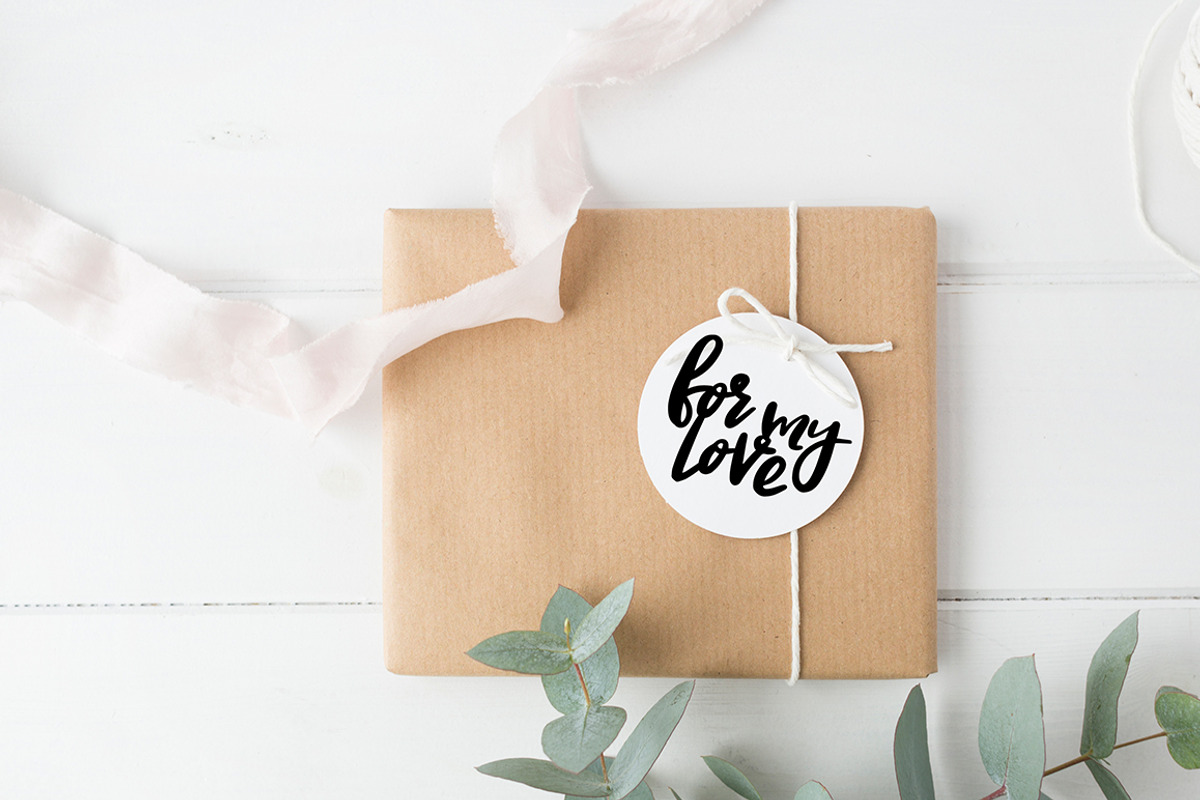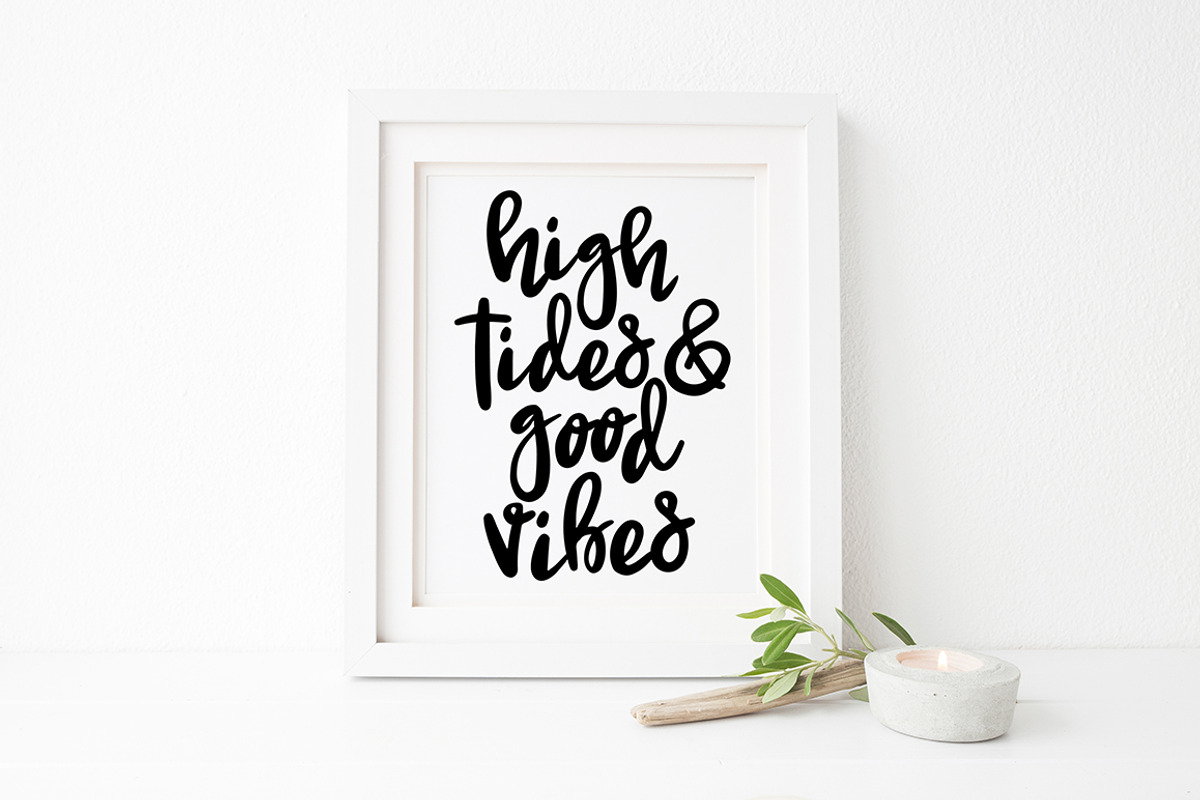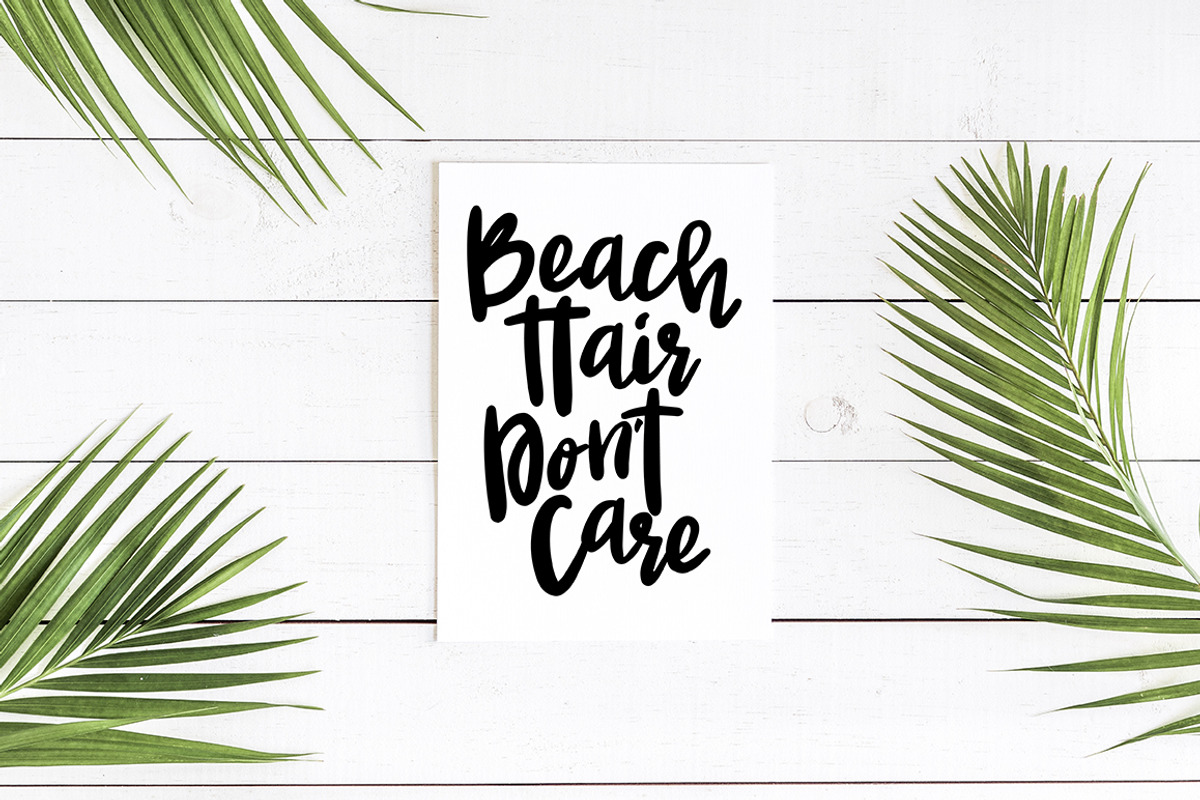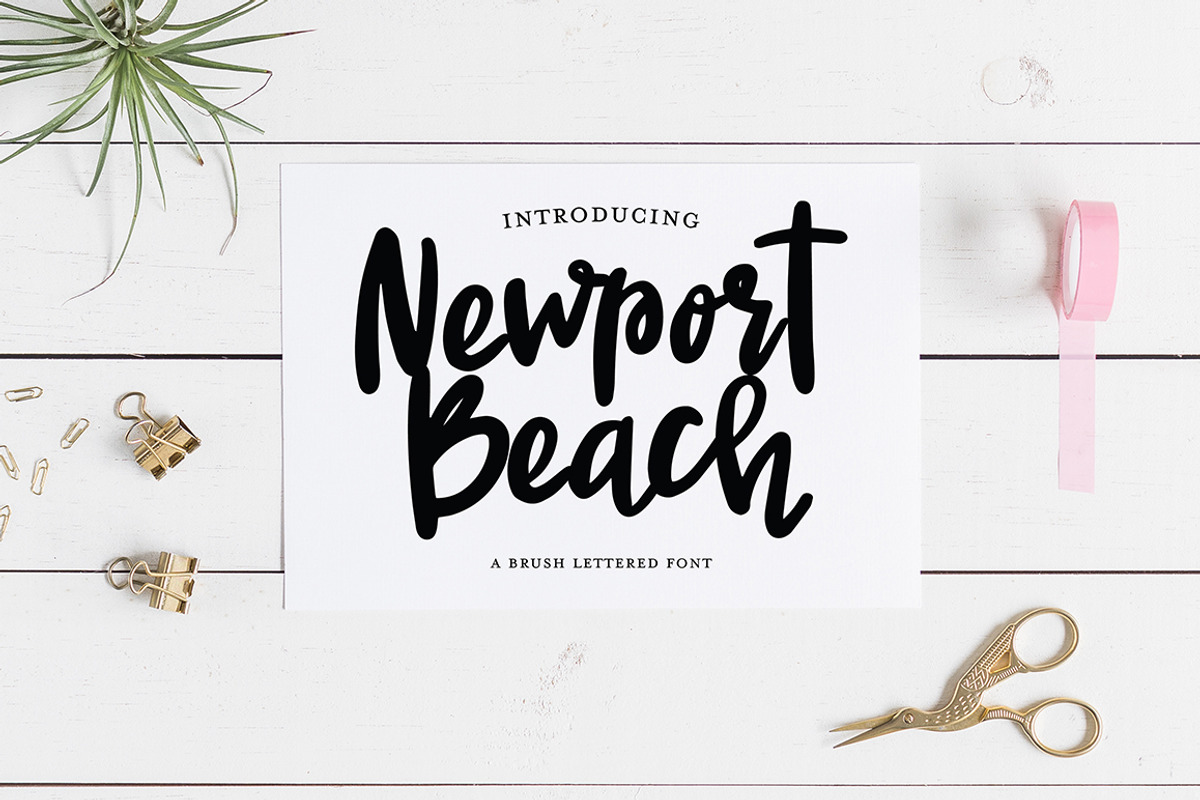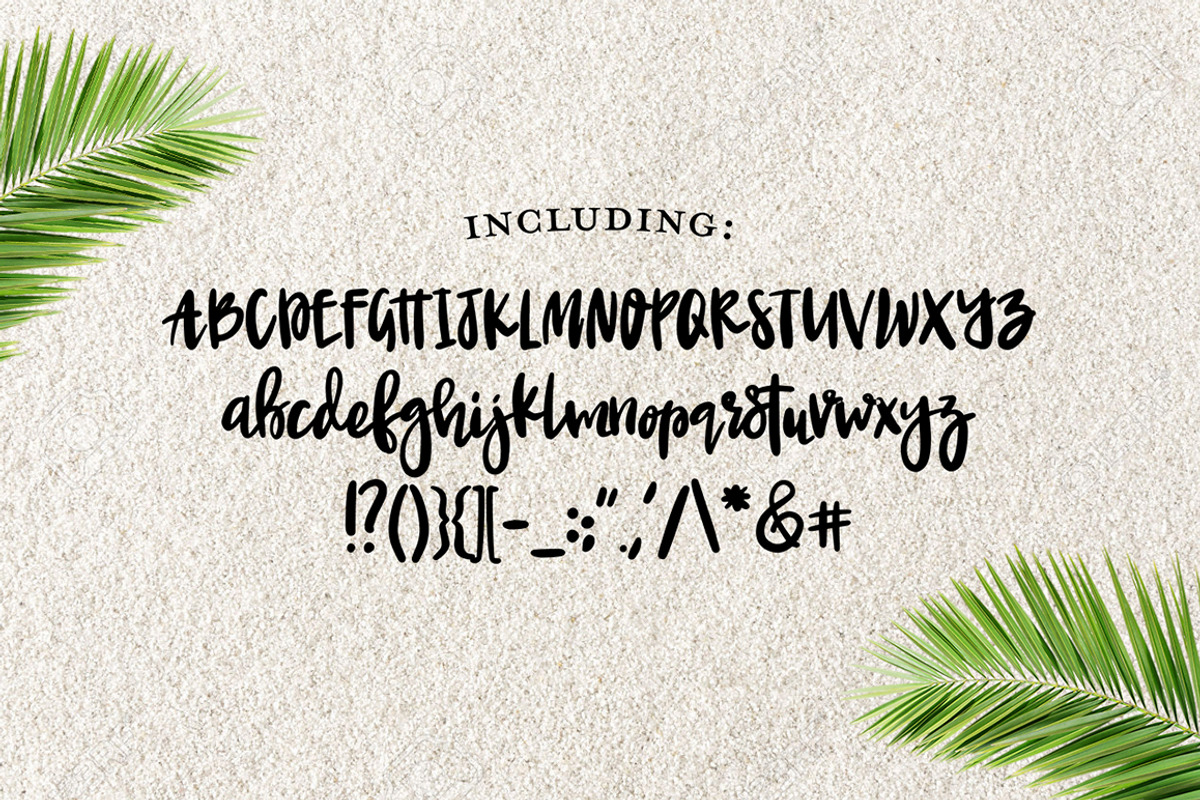
NEWPORT BEACH Brush Script Font
Welcome our newest font to the family, Newport Beach!
Newport Beach is a FUN, hand-drawn brush script typeface. This font will bring a lot of personality to your home decor, branding, or more! This design was inspired by a carefree attitude and beach-house vibes. This design is really fun to manipulate by outlining and resizing the letters. We would love to see what you come up with!